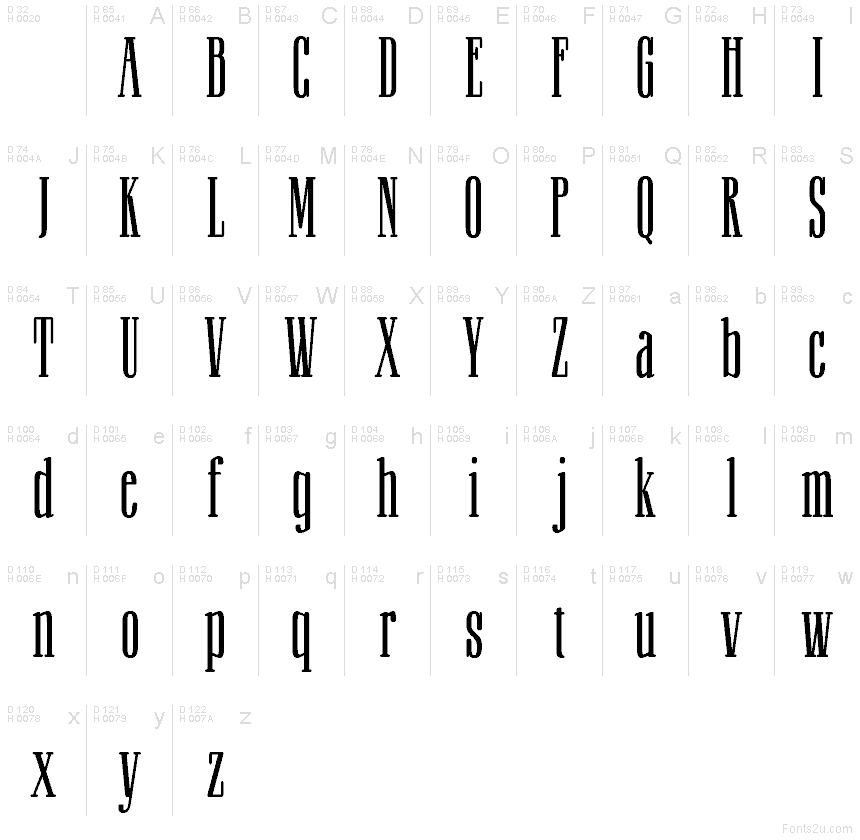
RailineRounded-Regular Demo
Railine Rounded font by Craft Supply Co. is an elegant retro design with a refined aesthetic in condensed proportions. Tall shapes of this free serif font make any text look sophisticated and modern as well as visually pleasing to the eye.